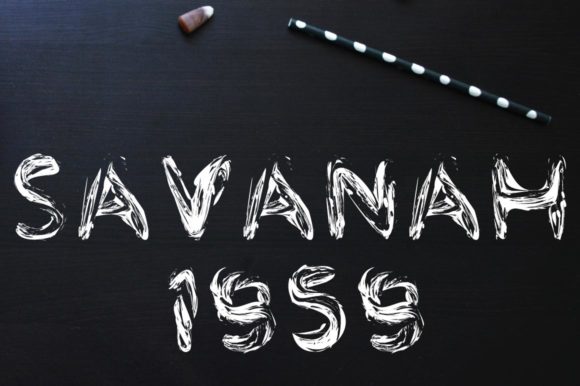
Welcome to the universe of Savanah 1959, where typography and artistry collide in an explosive blend of visual delight. Immerse yourself in the world of this display font, meticulously crafted by Zmapist, and unleash your creative potential. Savanah 1959 awaits you, prepared to ignite your imagination and fuel your artistic endeavors.
Savor the fusion of classic charm and modern sensibility, as Savanah 1959 effortlessly straddles the line between heritage and innovation. Its versatility knows no bounds, effortlessly adapting to an eclectic array of applications. From striking headlines that demand attention to elegant body copy that exudes refinement, Savanah 1959 rises to the occasion, captivating audiences at every turn. Gaze upon its unique character set, a symphony of carefully sculpted glyphs that dance across the screen, evoking an authentic and timeless aura.
Embrace the allure of Savanah 1959's distinctive display qualities. Its bold, exaggerated strokes possess an undeniable charisma, making your words leap from the page. With this font, you wield the power to create designs that are daring, memorable, and impossible to ignore. Experience the thrill of crafting logos that radiate personality, posters that ignite conversations, and social media graphics that captivate the online world.
Whether you're a seasoned design professional or an enthusiastic creative explorer, Savanah 1959 welcomes you into its creative embrace. Let your fingers glide across your keyboard, guided by the intuitive flow of this font. Bask in the satisfaction of watching your ideas take shape, rendered in the distinctive style of Savanah 1959. Prepare to witness your designs transcend the ordinary and ascend into the realm of the extraordinary.
Savanah 1959 is not merely a font; it's an invitation to unleash your artistic spirit, to break free from the confines of the mundane and embrace the power of self-expression. It's a font that understands the language of creativity and empowers you to speak it fluently.
Don't resist the allure of Savanah 1959. Dive into its depths, explore its nuances, and unlock a world of creative possibilities. Embrace the unique, the bold, and the beautiful. Allow Savanah 1959 to guide you on a journey of typographic exploration that will leave an indelible mark on your designs and captivate the hearts of your audience.